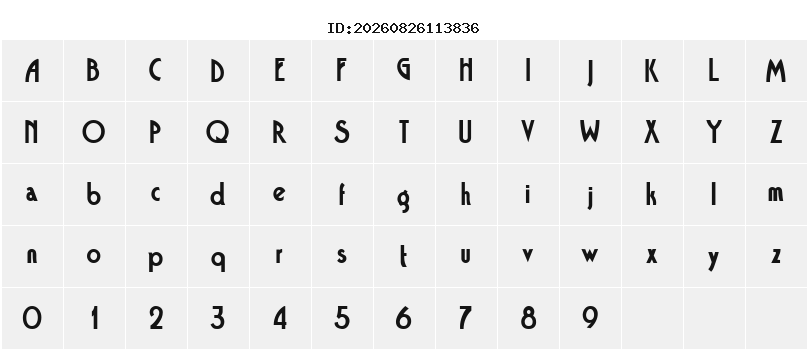
Wash Black Preview
• Font Name: Wash Black
• Font ID: WSI: Wash Black
• Full Font Name: Wash Black
• Version: W.S.I. International Distribution v1.1: 9/9/93
• PostScript Name: WashBlack
• Character Count: 224
About Wash Black.ttf
Wash Black.ttf is a modern, elegant sans-serif font designed for ultimate readability and visual harmony. Perfect for branding, headlines, web design, and print materials.